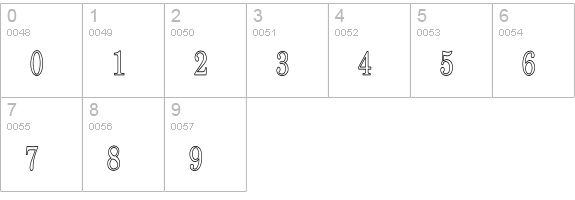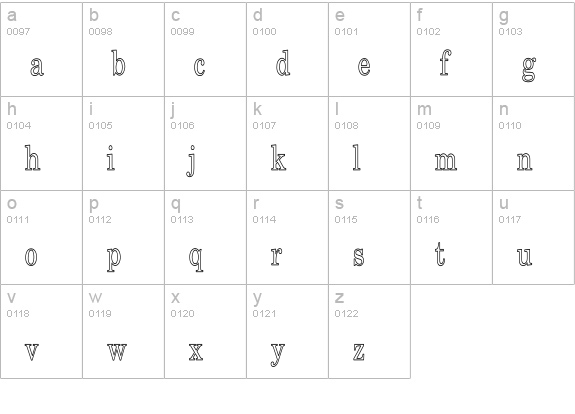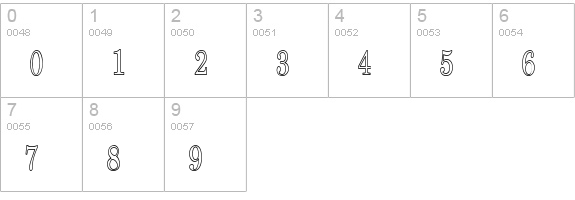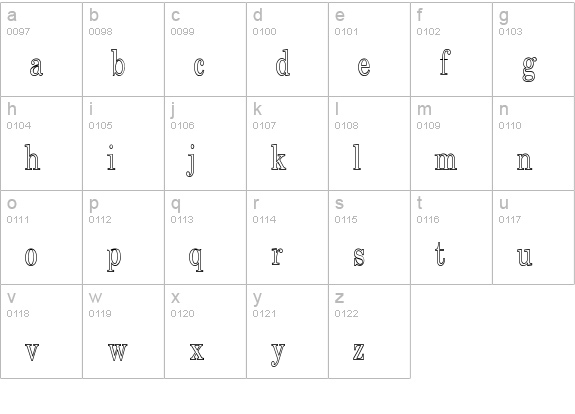
CenturySchoolboHC Font Details
CenturySchoolboHC font is a classic and elegant typeface that exudes sophistication and charm. With its timeless design and versatile style, this font is perfect for a wide range of design projects, from branding to editorial design. Its clean lines and balanced proportions make it easy to read and visually appealing. What's even better is that CenturySchoolboHC font is completely free to download at FontsMarket.com. This means you can enhance your designs with this beautiful font without any cost. Whether you're a seasoned designer or just starting out, CenturySchoolboHC font is a valuable addition to your font library. Download it today and elevate your projects with this stunning typeface.